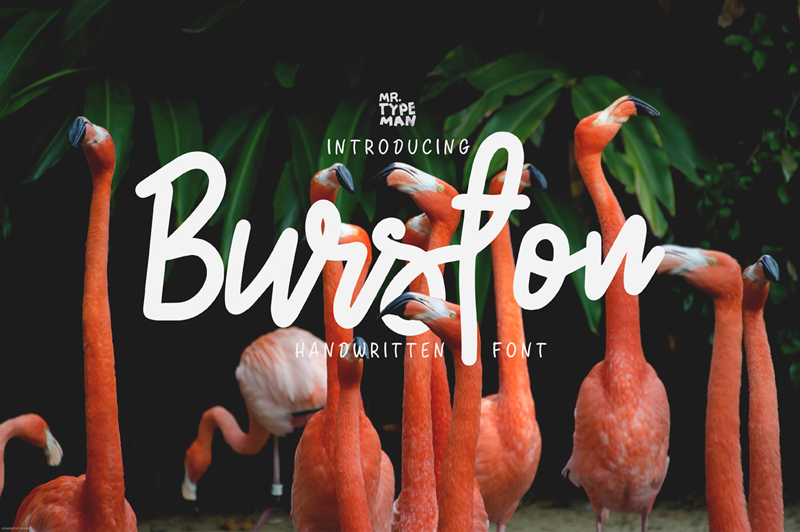
Preview and download Burston Font. Created by Mr. Typeman in Script Handwritten styles with Demo license.
Font name: | Burston |
Author: | Mr. Typeman |
This is the demo version of the font which was made for you to try out it in your projects. This means you can NOT use it for personal or commercial aims. DOWNLOAD FULL VESION FOR PERSONAL AND COMMERCIAL USE: https://crmrkt.com/A5kdm9 Burston will help you to decorate any of your projects in a pleasant hand-written style. It is easy to read and perfect for any design. Full version of Burston comes with uppercase, lowercase, standard punctuation and special letters for most of the European languages. ------------------------------------------------------ Contact me if you have any questions: mr.typeman@gmail.com ------------------------------------------------------ Hope you like it! |